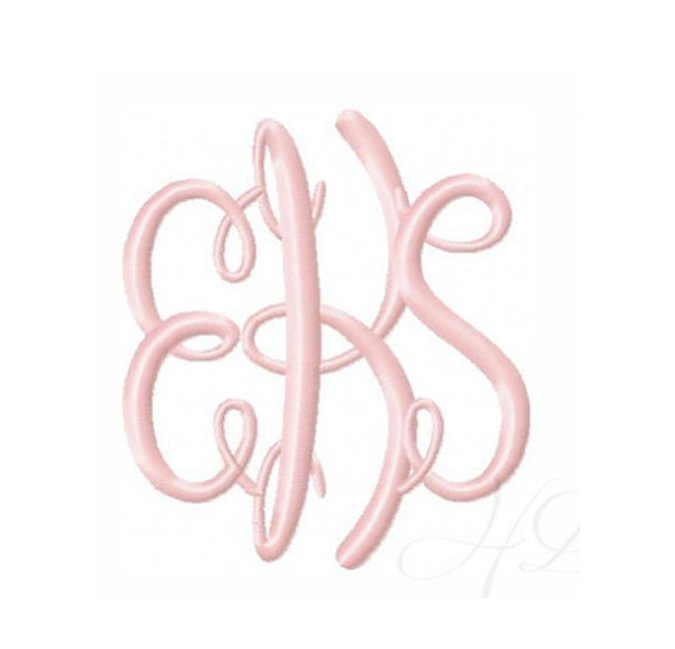
Ady Mastercircle Satin Embroidery Font
Elevate your crafting projects with the Ady Mastercircle Satin Embroidery Font. This versatile embroidery font package includes four sets of 78 individual letters, allowing you to create beautiful three-letter monograms in various sizes: 1", 2", 3.5", and 4". Each letter features elegant satin stitching, making your designs stand out. Please note, the embroidery fill stitch is sold separately.